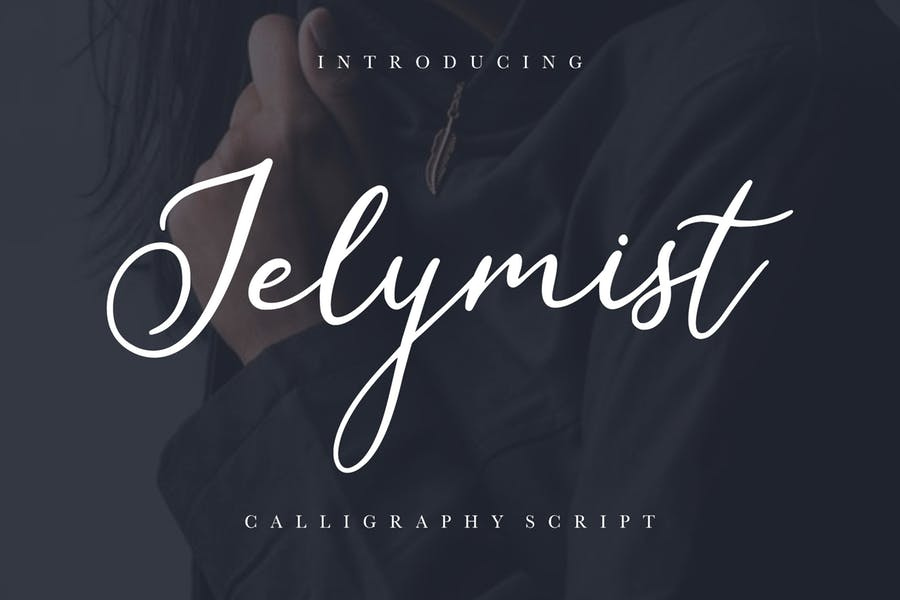
Jelymist Font
Jelymist Font is perfect for dreamy children's brands, magical fairy tale designs, whimsical party invitations, enchanting nursery décor, mystical spa branding, ethereal beauty products, fantastical gaming interfaces, celestial wellness centers, imaginative storytelling materials, and otherworldly creative projects.
Jelymist Font creates excitement because it embodies the ethereal beauty and mystical charm of otherworldly magic with its flowing letterforms and enchanted character design. The font's misty curves and celestial aesthetic instantly convey wonder and magical transformation, making any brand appear enchanting and authentically mystical. Its carefully crafted ethereal details and magical character create an immediate sense of otherworldly beauty that captivates audiences seeking enchanted experiences, mystical products, and brands that celebrate the transformative power of imagination and the beautiful mysteries of magical realms.
The Jelymist Font family includes multiple weights and styles: Regular, Bold, Light, Medium, Italic, Condensed, Extended, Ethereal, Mystical, and Enchanted versions. Each variant maintains the font's signature magical character while offering different levels of ethereal styling and mystical authenticity suitable for various fantasy and imaginative applications.
This enchanting typeface brings the authentic spirit of mystical beauty into contemporary design with remarkable ethereal appeal and magical sophistication. Jelymist Font Free Download provides fantasy brands and imaginative organizations with access to premium mystical typography that embodies the essence of otherworldly beauty and magical transformation. The font's ethereal design and mystical authenticity make it ideal for businesses seeking to establish meaningful connections with audiences who appreciate magical experiences, fantastical storytelling, and the transformative power of imagination and wonder. Whether you're creating branding for children's entertainment companies, designing materials for mystical wellness centers, developing packaging for magical products, or producing content for fantasy gaming platforms, this font delivers the enchanted atmosphere that resonates with audiences seeking genuine magic, ethereal beauty, and the otherworldly experiences that transport people to realms of wonder and imagination. Its versatile design ensures outstanding performance across both dreamy printed materials and mystical digital platforms while maintaining the character of authentic magical typography. The font excels in applications requiring fantasy credibility and mystical appeal. Creative industry professionals appreciate its ability to convey genuine magic while remaining highly readable for various imaginative communications and fantastical promotional materials. The comprehensive character set includes mystical symbols and extensive international language support, making it perfect for global fantasy brands and international imaginative organizations seeking to communicate authentic magic, ethereal beauty, and mystical wonder to diverse worldwide audiences who embrace imagination, seek fantastical experiences, and value the transformative power of genuine magic that opens doorways to otherworldly realms filled with beauty, mystery, and endless possibilities for wonder and enchantment.